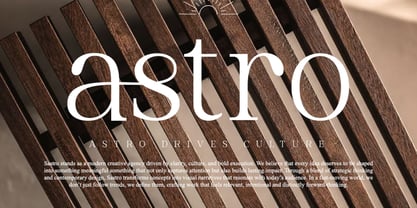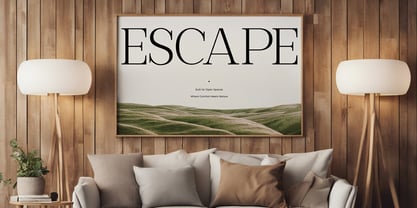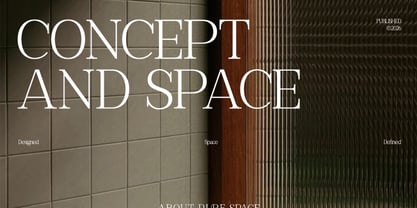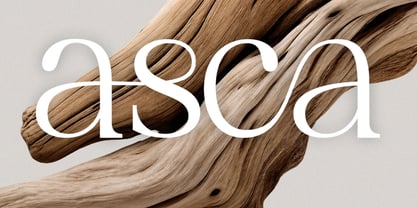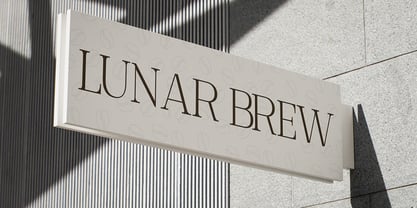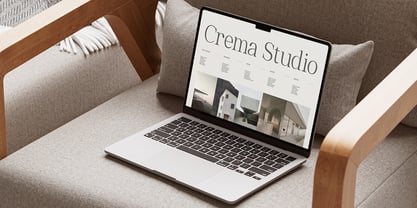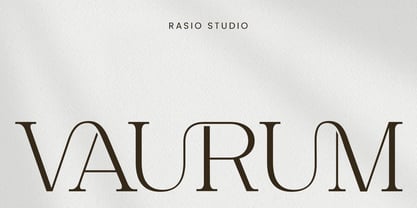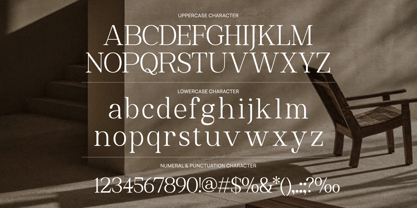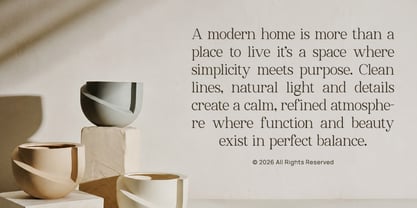
Vaurum
The Vaurum Font Family was designed by Fajar Indra and published by Rasio Studio. Vaurum contains 1 styles. More about this family
Vaurum Modern Serif is a refined display typeface featuring elegant high-contrast strokes, graceful curves, and sophisticated serif detailing. Designed with balanced proportions and clean spacing, this font delivers a luxurious editorial aesthetic while maintaining excellent readability for both large headlines and stylish branding compositions.
Relevance & Use Cases is highly relevant for luxury branding, fashion editorials, interior design presentations, beauty packaging, wedding stationery, boutique logos, lifestyle magazines, hotel identities, and premium social media visuals.